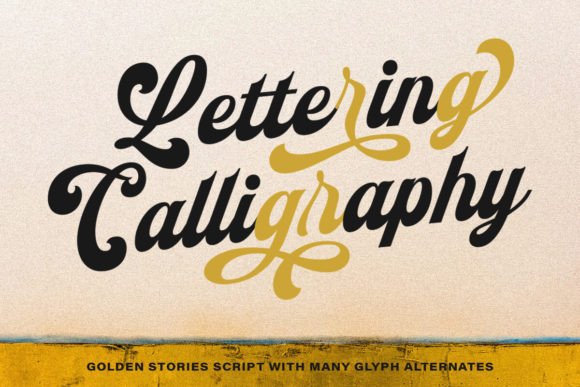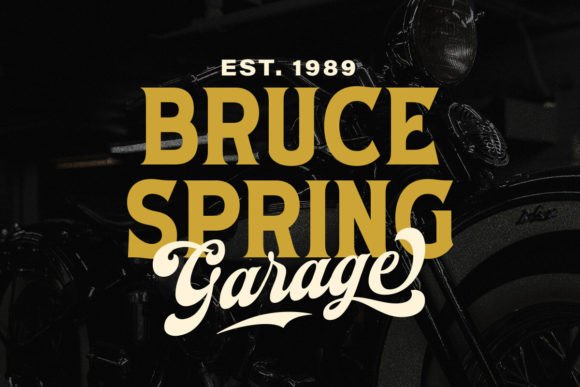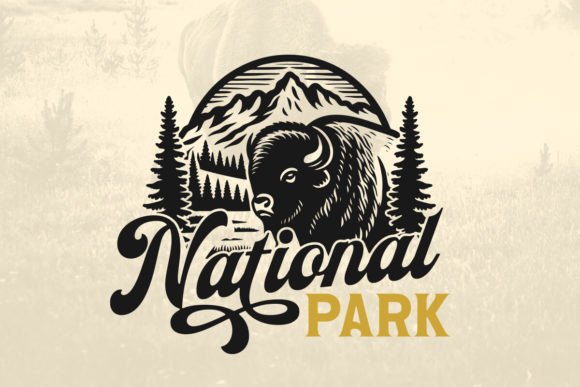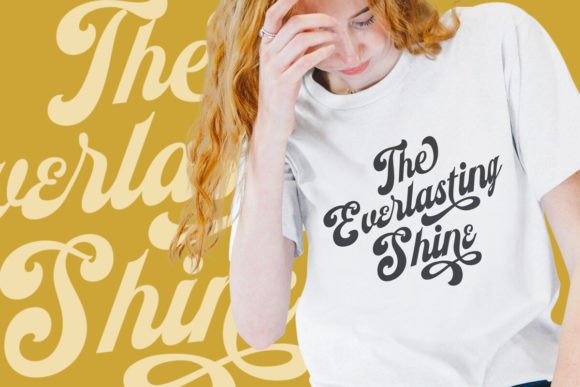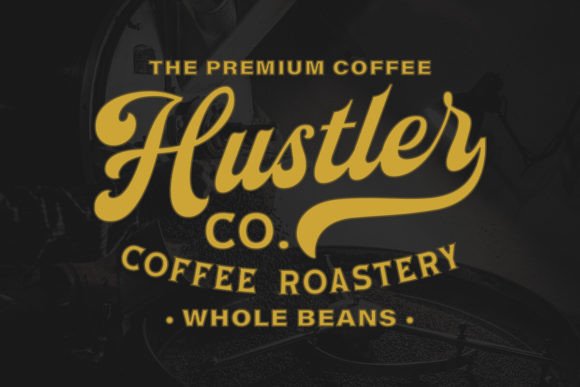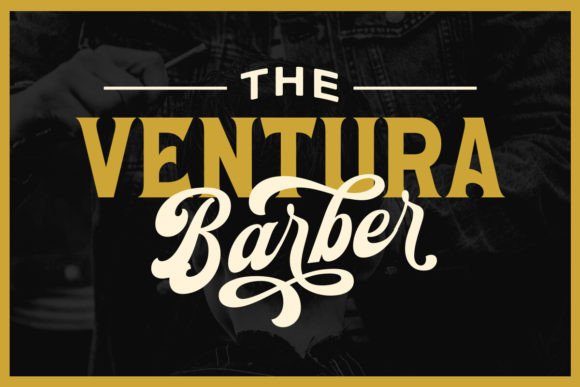
Introduction to Golden Stories Font
Golden Stories is a vintage duo display typeface with a touch of nostalgic feel.
The bold script and classic display look make this font stand to be used as a title or a logo This font is perfectly made to be applied especially in logos, and other various formal forms such as invitations, labels, magazines, books, greeting/wedding cards, packaging, fashion, makeup, stationery, novels, labels, or any type of advertising purpose.
Key Features of Golden Stories Font